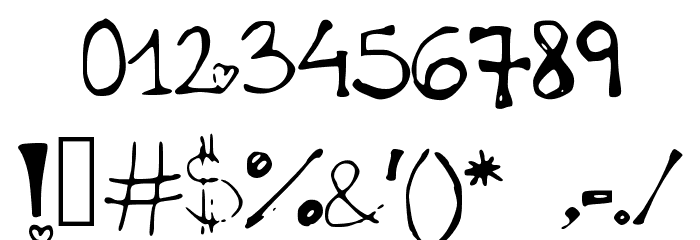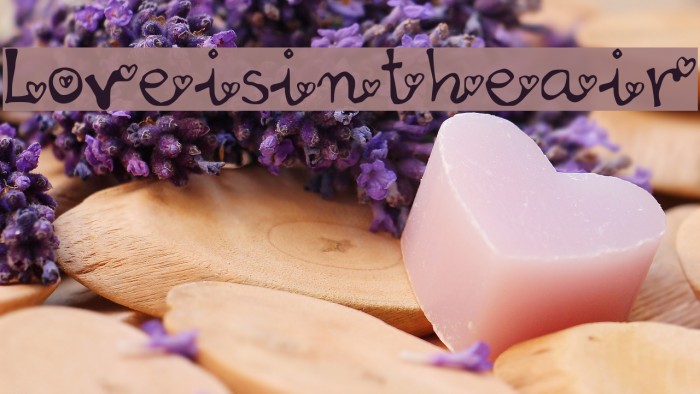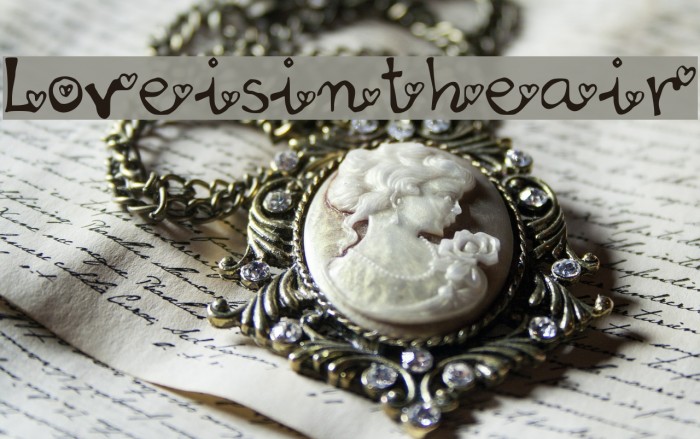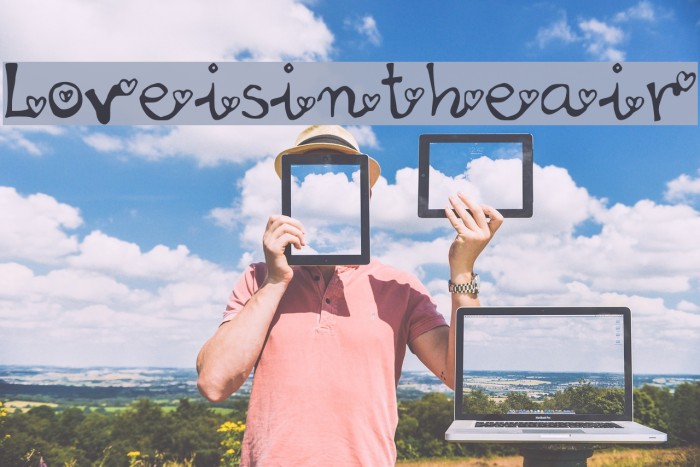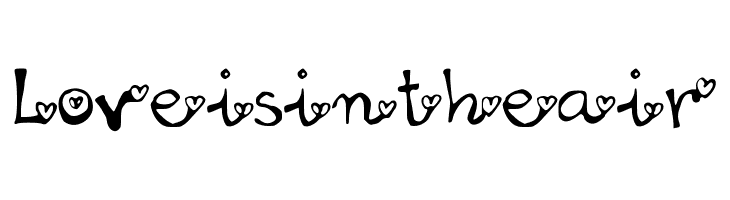
Loveisintheair Font
This playful and whimsical font features a unique design where each character is adorned with heart motifs, either embedded within or attached to the letters. The font has a hand-drawn, artistic feel, with varying stroke thicknesses that add to its charm. The uppercase and lowercase letters maintain a consistent style, with a slightly irregular baseline that enhances its casual and fun appearance. Numbers and special characters are also included, each incorporating the heart theme, making it ideal for romantic or lighthearted projects.
A whimsical, heart-themed font with a playful, hand-drawn style.
- Proposed Projects: Ideal for Valentine's Day cards, wedding invitations, romantic event posters, or any project requiring a playful and loving touch.
- Use Case: Headlines, Logos, Invitations